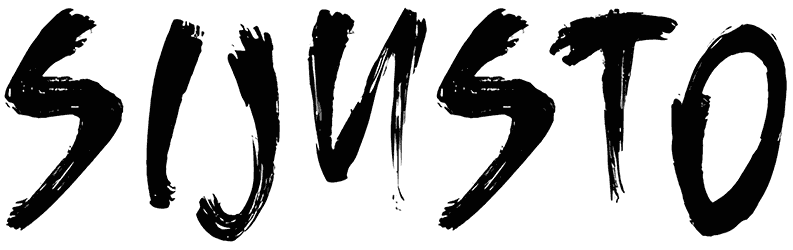
Sijusto Font
There’s only one step you should take to make up for all the aesthetic touch missing from your lettering, and that’s applying Sijusto to it. As a brush font, it knows just the way to make things sound a lot cooler.
Don’t you like your next summer posters, backpacks, and mugs to look as inspired as this modern font? It may be without lowercase, but its capitals are enough to make great things happen in your art.